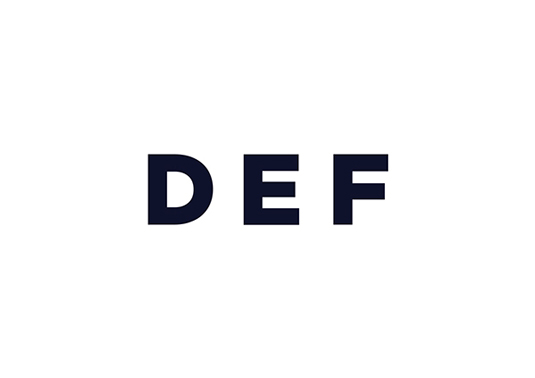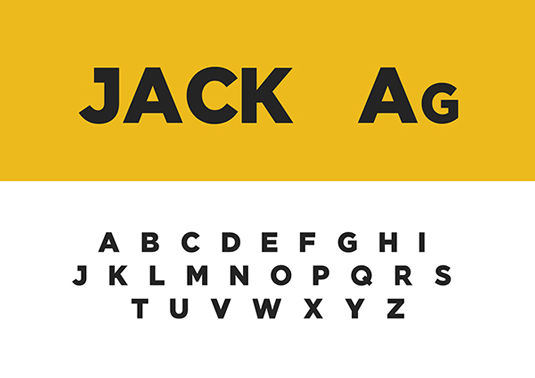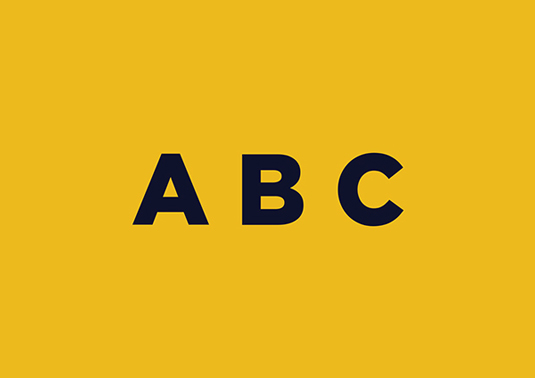
Font of the day: Jack
Every day we showcase the best fonts on the web. Today it's Jack by Lewis Wilson.
Jack by Lewis Wilson
Kicking off this week's font of the day is Jack, an all caps display typeface created by graphic designer Lewis Wilson. "This new version has improved glyph shapes, making it ideal for illustrations, logos and other typographic work," Wilson comments.